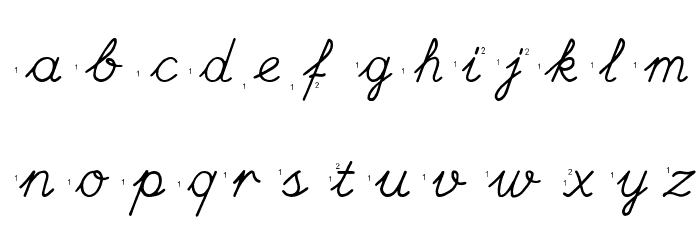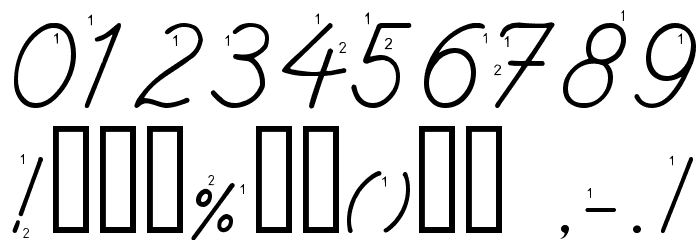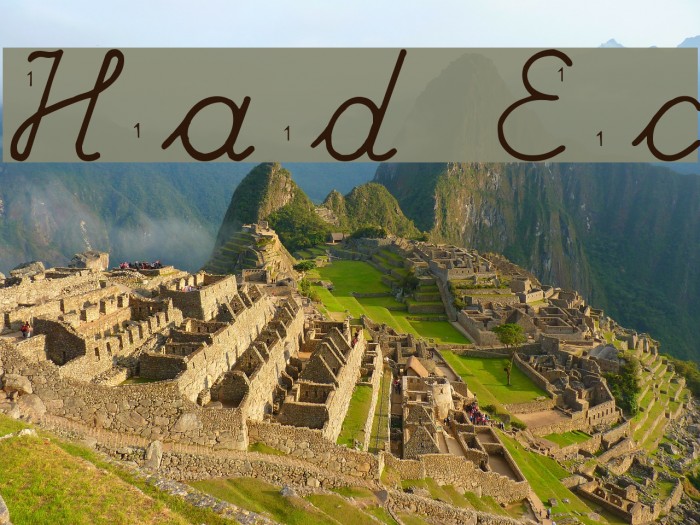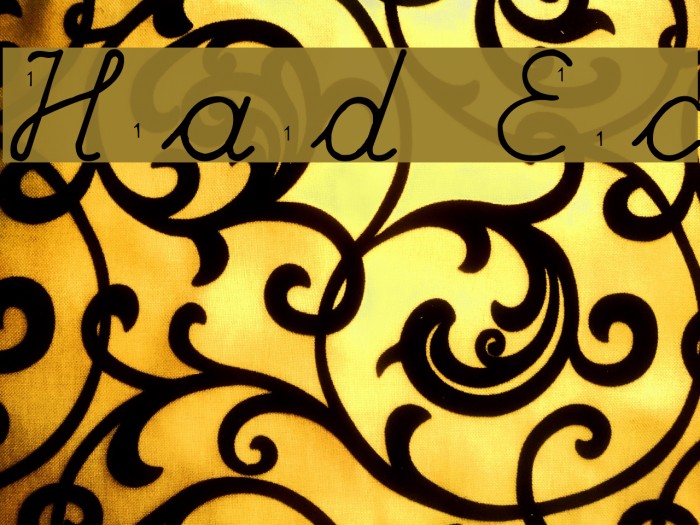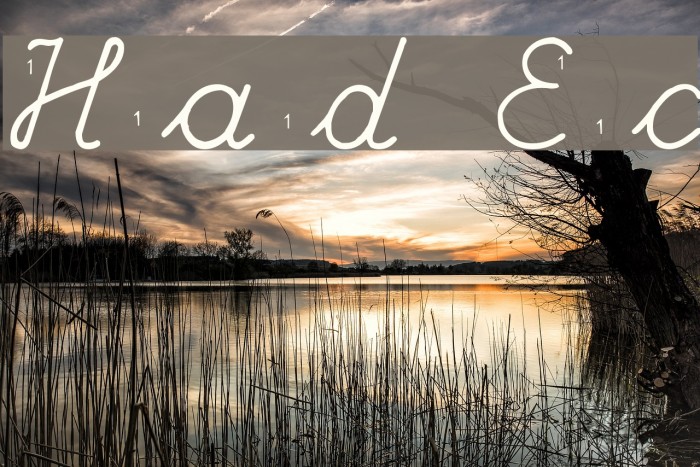
Hand Escort Font
This font exhibits a classic cursive style with elegant, flowing lines that mimic the fluidity of handwriting. The uppercase letters are slightly more ornate, featuring subtle flourishes that add a touch of sophistication. The lowercase letters maintain a consistent slant, enhancing the script-like appearance. Numbers are designed with a similar cursive flair, ensuring a cohesive look across all characters. Special characters are integrated seamlessly, maintaining the overall aesthetic. The font's delicate strokes and graceful curves make it suitable for projects that require a personal, handwritten touch.
A classic cursive font with elegant, flowing lines and a handwritten style.
- Proposed Projects: Ideal for wedding invitations, personal letters, branding materials, and any project requiring a touch of elegance and sophistication.
- Category: Script
- Overall Style: Classic
- Use Case: Logos, Invitations, Personal Correspondence